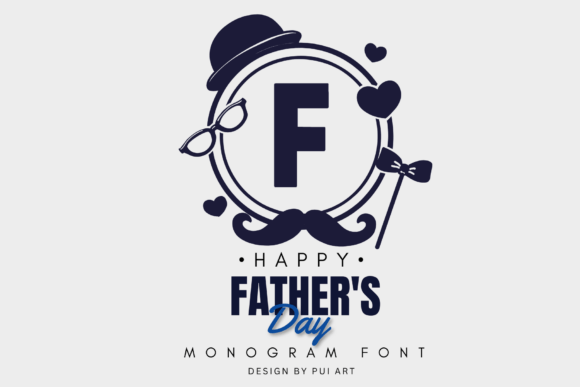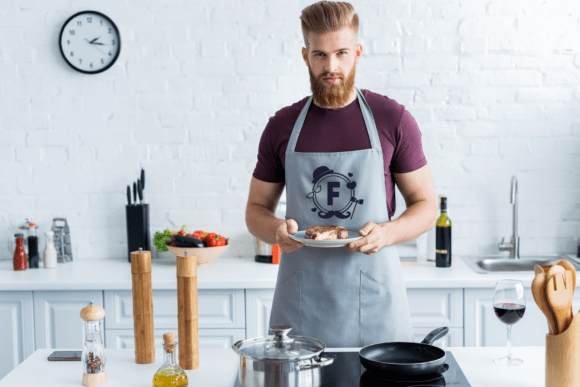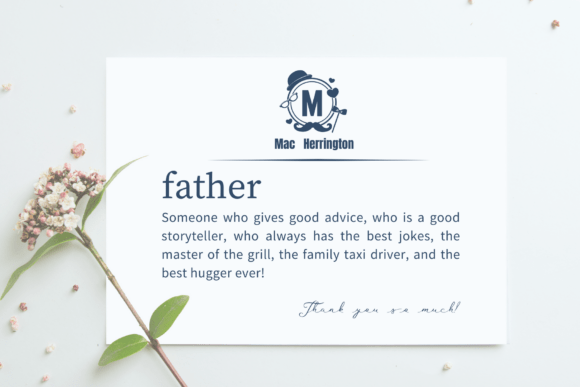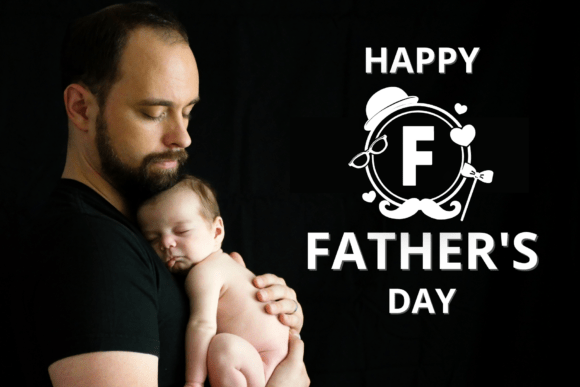
Father’s Day Monogram Font
About the Father’s Day Monogram Font
Discover the charm of Father’s Day Monogram Font. This font is a perfect blend of modern aesthetics and classic appeal. Father’s Day Monogram Font is a bold and heartfelt display font designed to celebrate dads in style. Featuring a strong, masculine typeface paired with charming monogram elements like hats, glasses, and mustaches, this font is perfect for Father’s Day cards, gifts, apparel, and DIY crafts. It brings a fun yet classy vibe to every father-focused creation.
This font’s bold, playful personality makes it ideal for headlines, logos, and short impactful text on packaging or promotional materials. It excels in applications requiring a strong visual presence, such as Father’s Day-themed posters or apparel designs. However, its decorative elements make it less suitable for body text or long paragraphs; readability would suffer.
Consider pairing it with a clean sans-serif like Open Sans for a balanced contrast, or a more elegant serif like Lora to enhance the classy vibe. For a modern twist, a geometric sans-serif such as Montserrat could work well. Avoid pairing it with other highly decorative fonts to prevent visual clutter.
The font’s inherent energy best suits brands projecting a fun, yet sophisticated masculinity. Think craft breweries, men’s grooming products, or businesses celebrating fatherhood. Its strong visual identity ensures memorability, making it effective in branding applications where impact is key.
Father’s Day Monogram Font Usage Examples
Father's Day Monogram Font Example